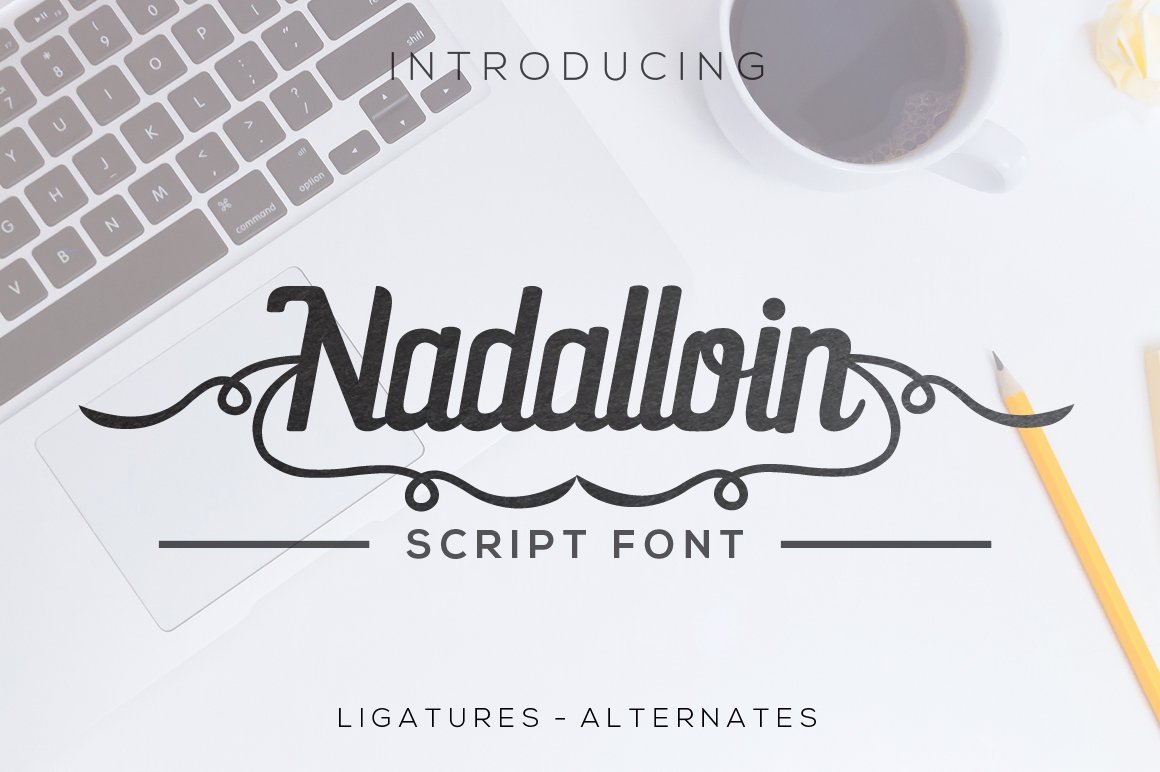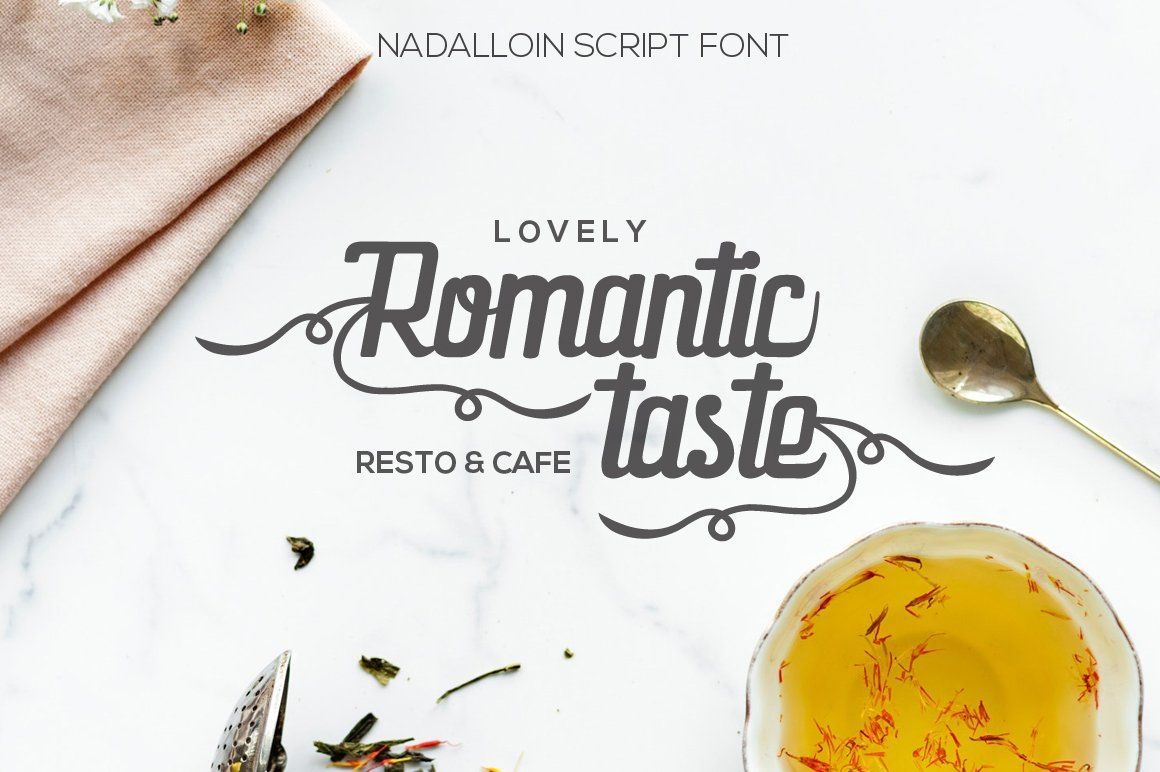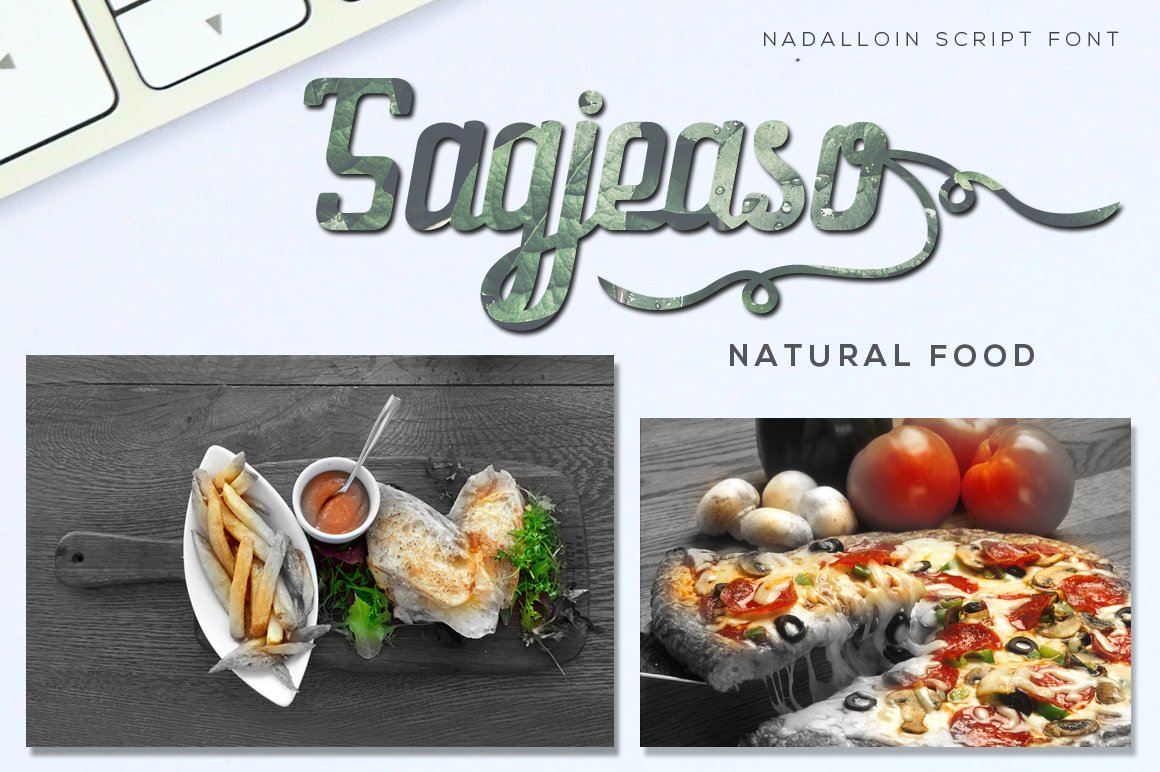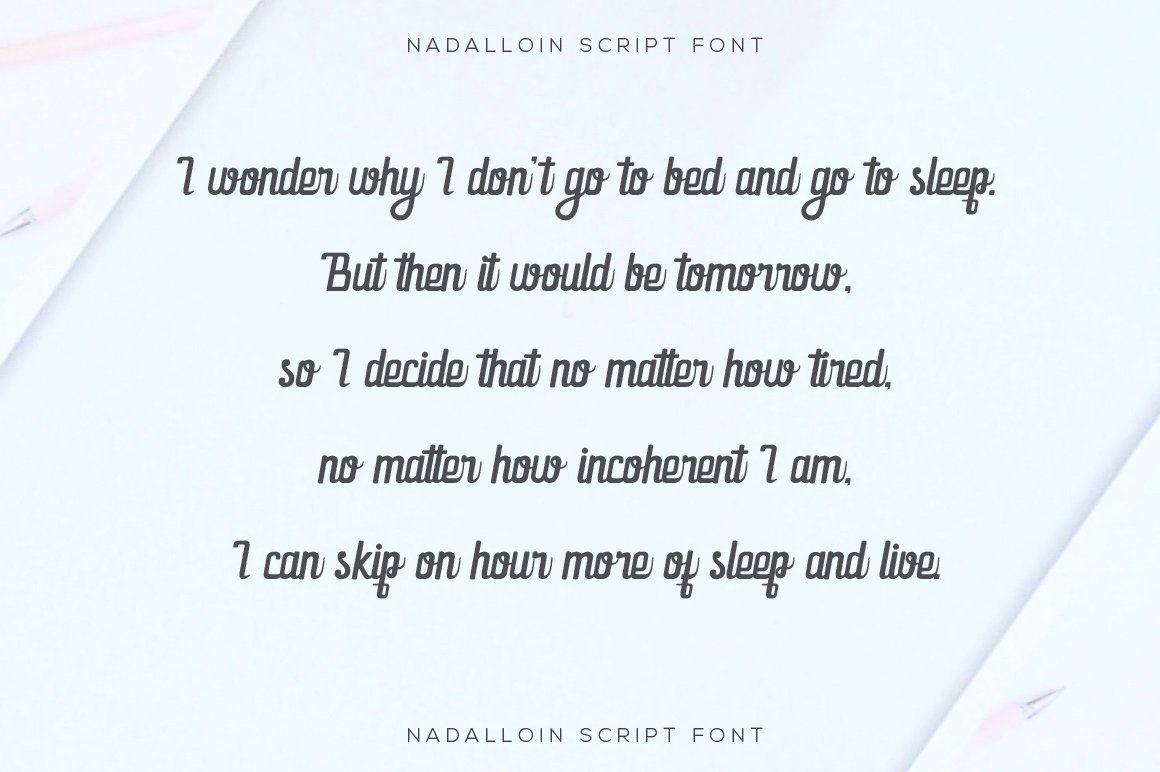
About Nadalloin font
Nadalloin font Nadalloin is a geometric modern script font with vintage ornament. Very suitable for greeting cards, branding materials, business cards, quotes, posters, and more! Features : Available in single OTF , TTF and WOFF files Uppercase A-Z Lowercase a-z Numbers 0-9 Accents Punctuation Uppercase Alternates Lowercase Alternates PUA Encoded Multilingual support Support for Windows, Mac and Linux OS HOW TO ACCESS ALTERNATE CHARACTERS You need a program that supports OpenType features like Adobe Illustrator CS, Adobe Indesign & CorelDraw X6-X7, Microsoft Word 2010 or later to enable OpenType features (ligatures and alternates). For the programs that do not support OpenType features you can use Character map application (windows) / Font Book (Mac) or Babel map application (optional), choose the font and then copy-paste alternate characters from them to your project page (such as photoshop page etc). If you have any questions regarding this product kindly leave your message through the contact form, comment field or contact us at  . Enjoy the font!! Thank you.. Don’t forget to visit our shop and check our products click here